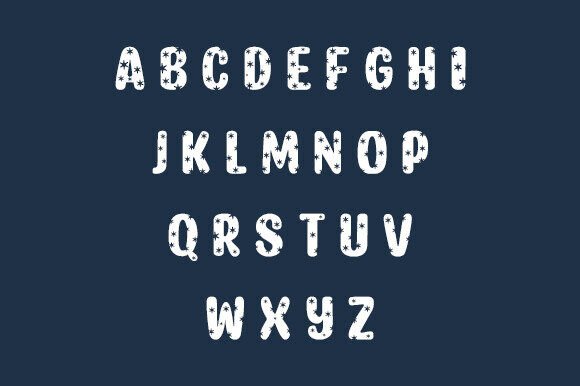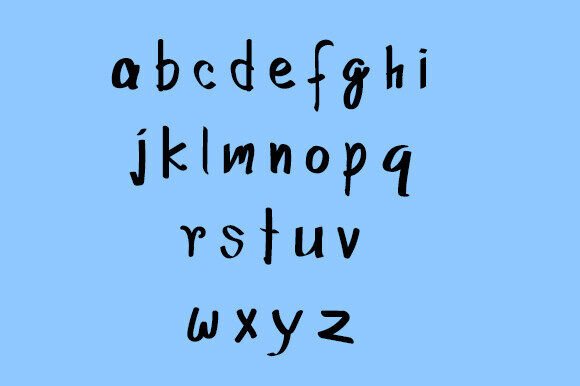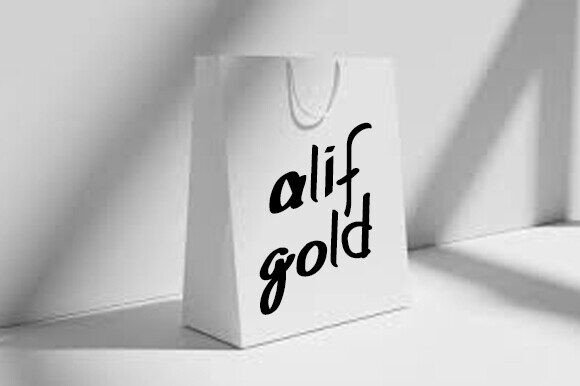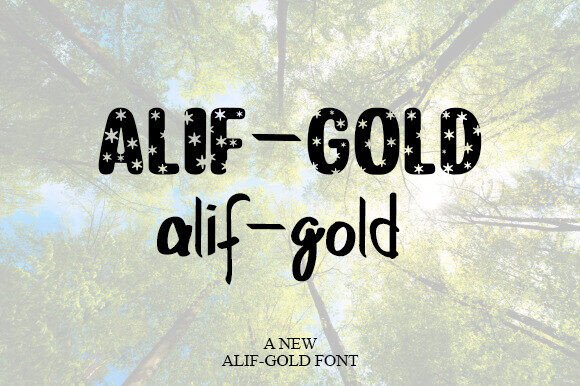
The Alif-Gold Font: A Unique Duo-Style Font for Creative Projects
Have you ever been in the middle of a design project, and suddenly, you’re stuck on finding the perfect font? I recall a recent experience where I was working on a whimsical greeting card design, and my client requested a font that was both playful and elegant. After scouring through numerous font libraries, I stumbled upon the Alif-Gold font, which turned out to be a game-changer for my project.
The Alif-Gold font is a unique and creative duo-style font that features a decorative uppercase typeface with star embellishments and a handwritten lowercase script. This playful yet elegant combination makes it perfect for branding, invitations, greeting cards, posters, and whimsical designs. Whether you’re aiming for a charming and festive look or a natural and artistic feel, Alif-Gold has got you covered!
- ✨ Unique and creative duo-style font with decorative uppercase and handwritten lowercase scripts
- ✅ Perfect for branding, invitations, greeting cards, posters, and whimsical designs
- 🎉 Playful yet elegant combination for a charming and festive look or a natural and artistic feel
- 💻 Highly versatile and can be used for various design projects
- 🤔 Limited use of punctuation marks and special characters
- ⚠️ May require additional design elements to enhance legibility
The Alif-Gold font was designed with inspiration from traditional Arabic calligraphy and modern digital design. The creator aimed to craft a font that would blend classic elegance with a playful, whimsical touch. The result is a unique duo-style font that’s perfect for creative projects and designs.
Q: What type of designs is Alif-Gold font best suited for?
A: Alif-Gold font is perfect for branding, invitations, greeting cards, posters, and whimsical designs.
Q: Is Alif-Gold font suitable for body text?
A: While Alif-Gold font is beautiful, it’s best suited for headlines, titles, and short paragraphs. For body text, consider using a more legible font.